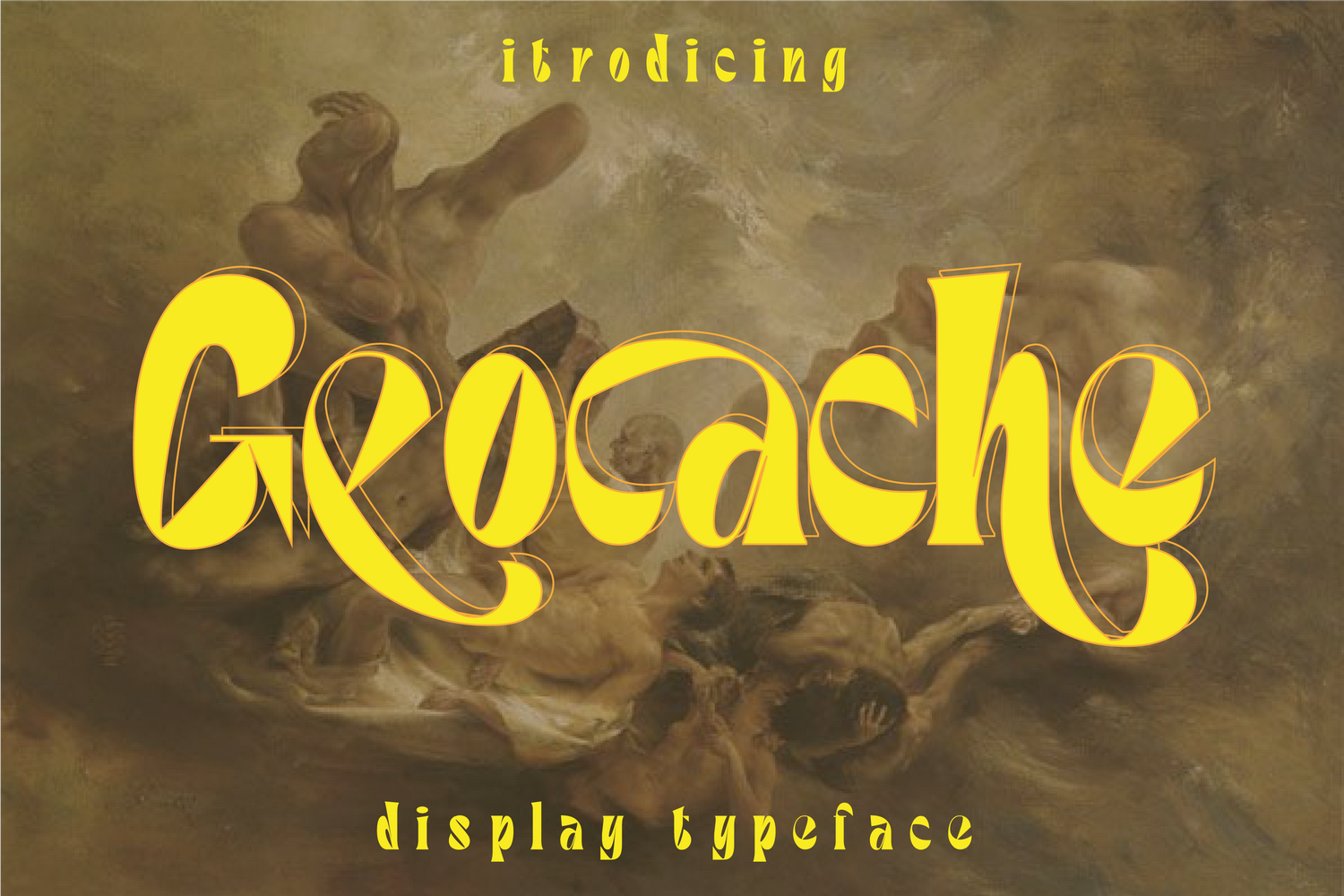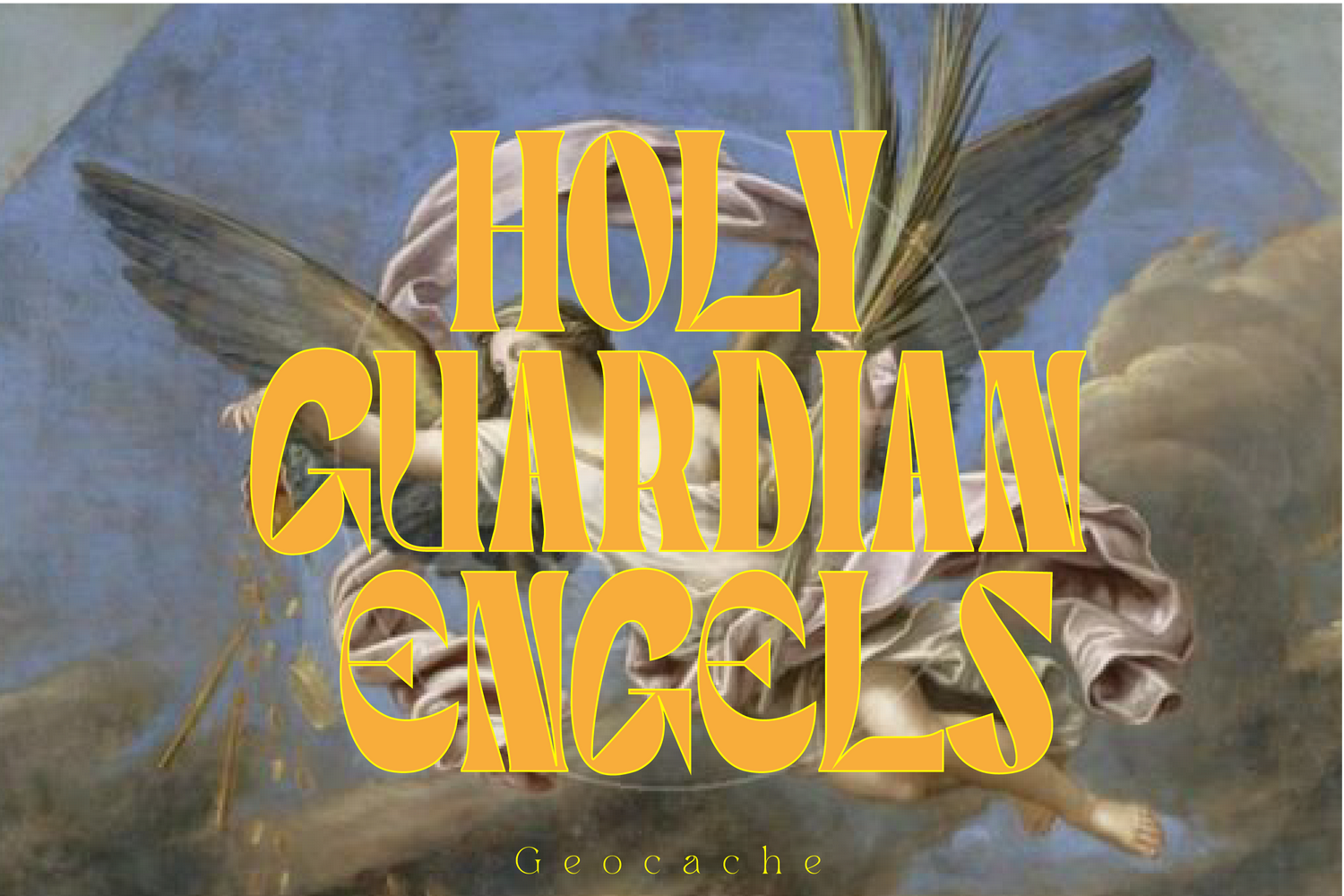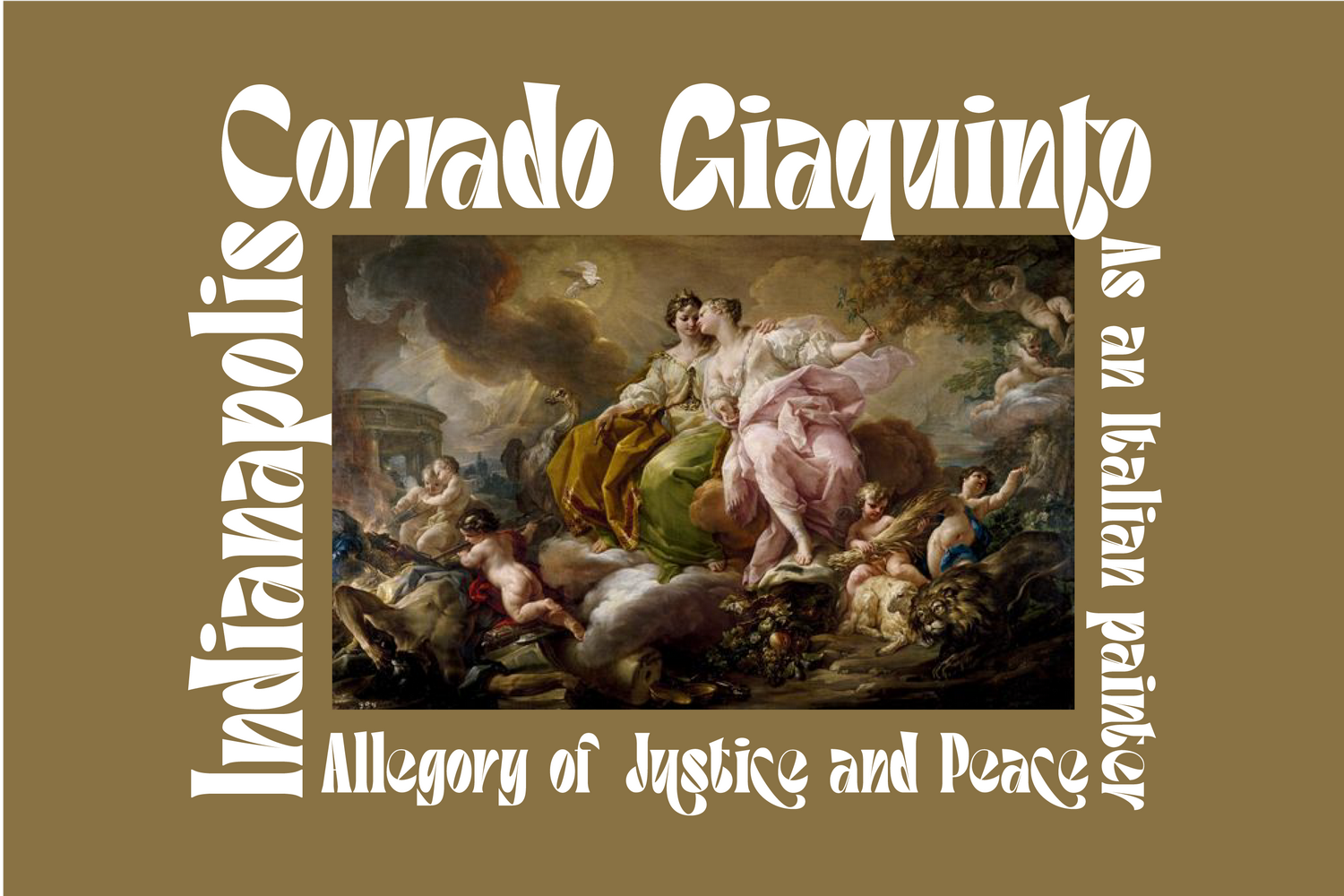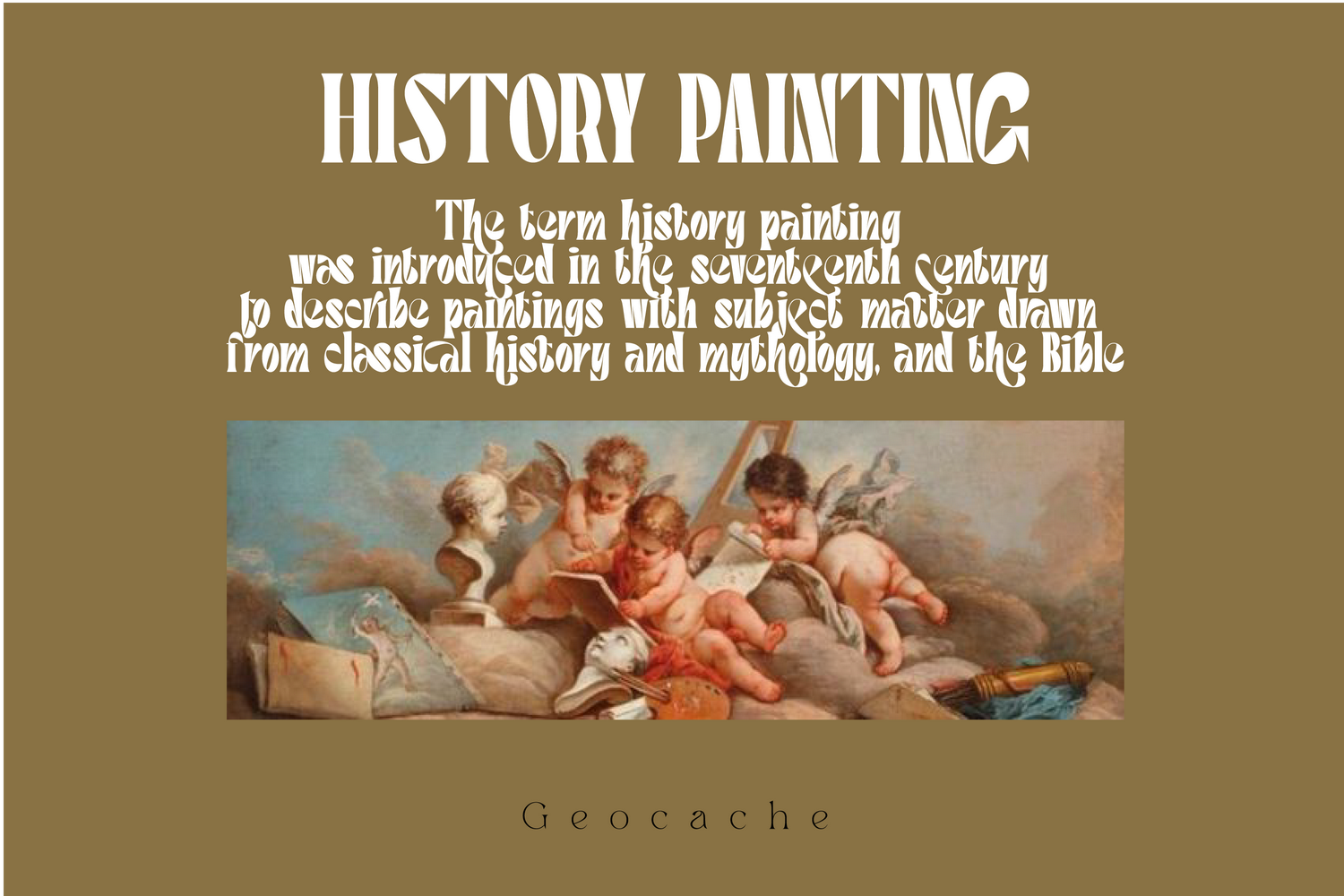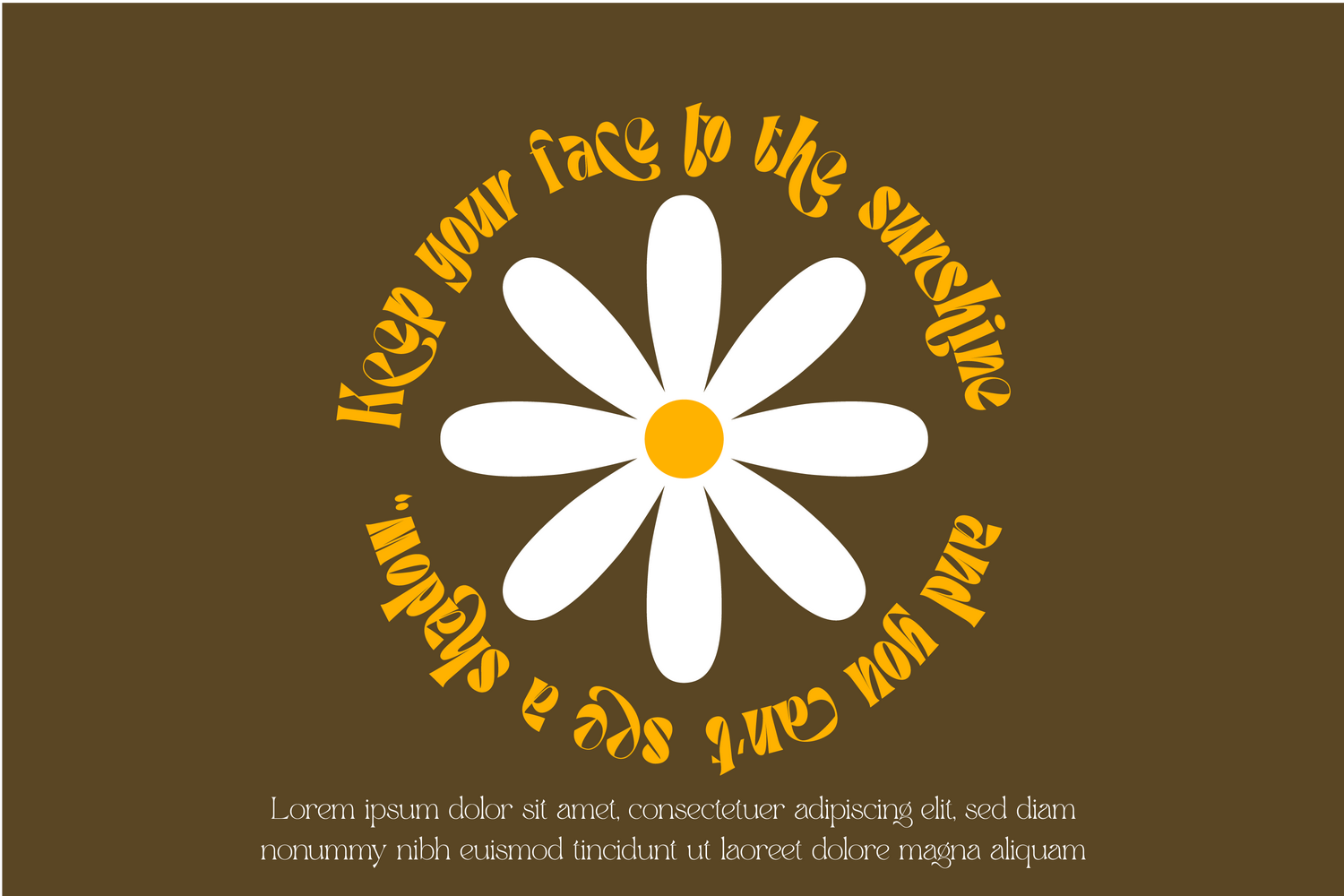
Geocache Condensed Font is an elegant, condensed sans serif font with a bold and complex personality. The type is a weird serif combined with some sharp turns, it is inspired by vintage typography & lettering and it features some new-era touches. This makes the type somewhat a hybrid in between the future & the past, keeping our old era alive while still being somewhat trendy.
To make it look more unique, here we prepared some ligatures:
ab ag as at ay ca cc ce cg co cs cy ec ee eo fj fh fk fb ga ha hc he hi uo ue to st sa rj ri ra os ns ms ku ko ki ke ka ks jl jk jh jf jb il ik ih if ib hs ho uc us xa xc xe xo xs xy za ze zo zs
Include Fancy Style on Every Uppercase and Some Lowercase
Geocache is also included full set of:
• Uppercase and Lowercase letters
• Special Ligatures
• Accented characters
Geocache Condensed Font